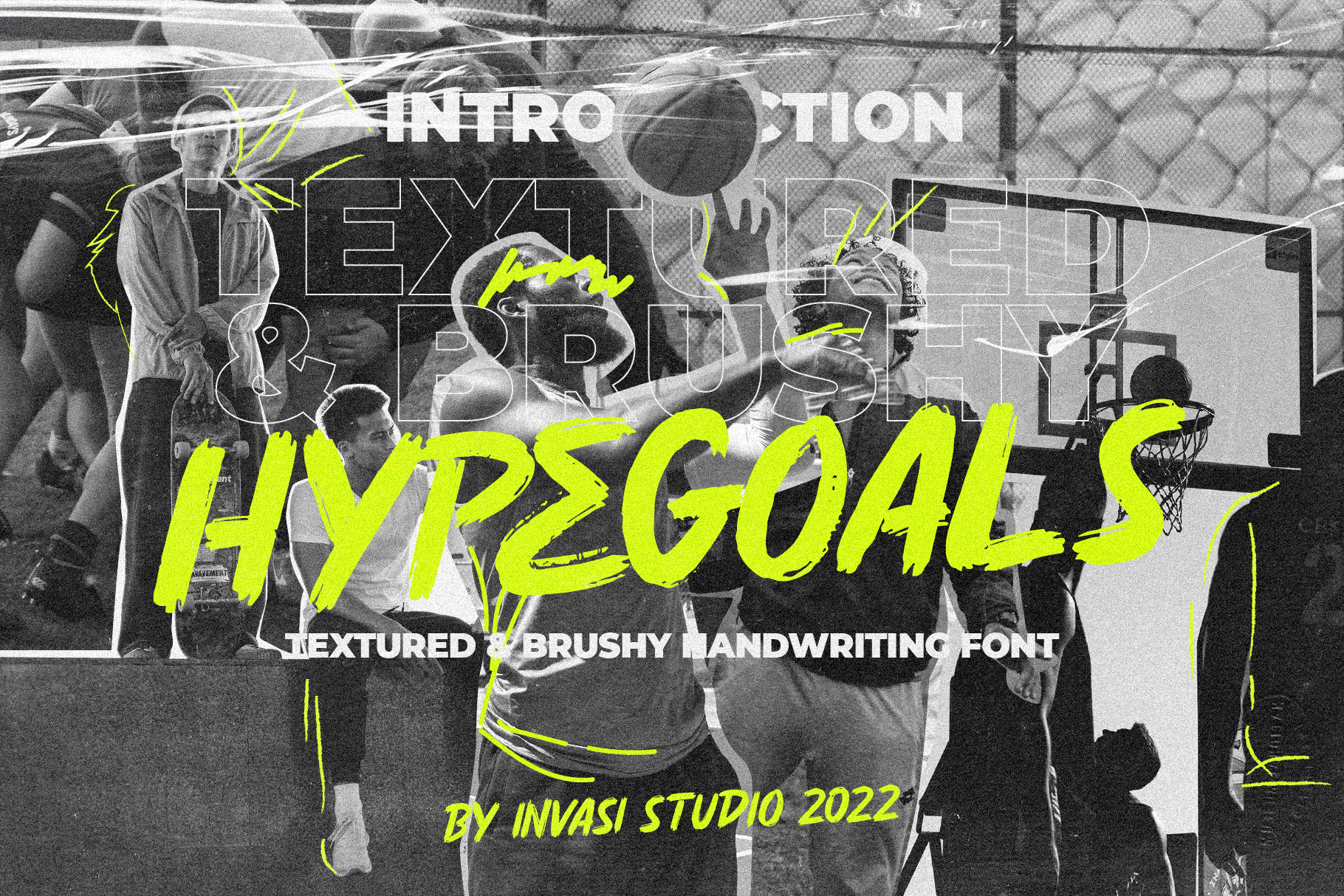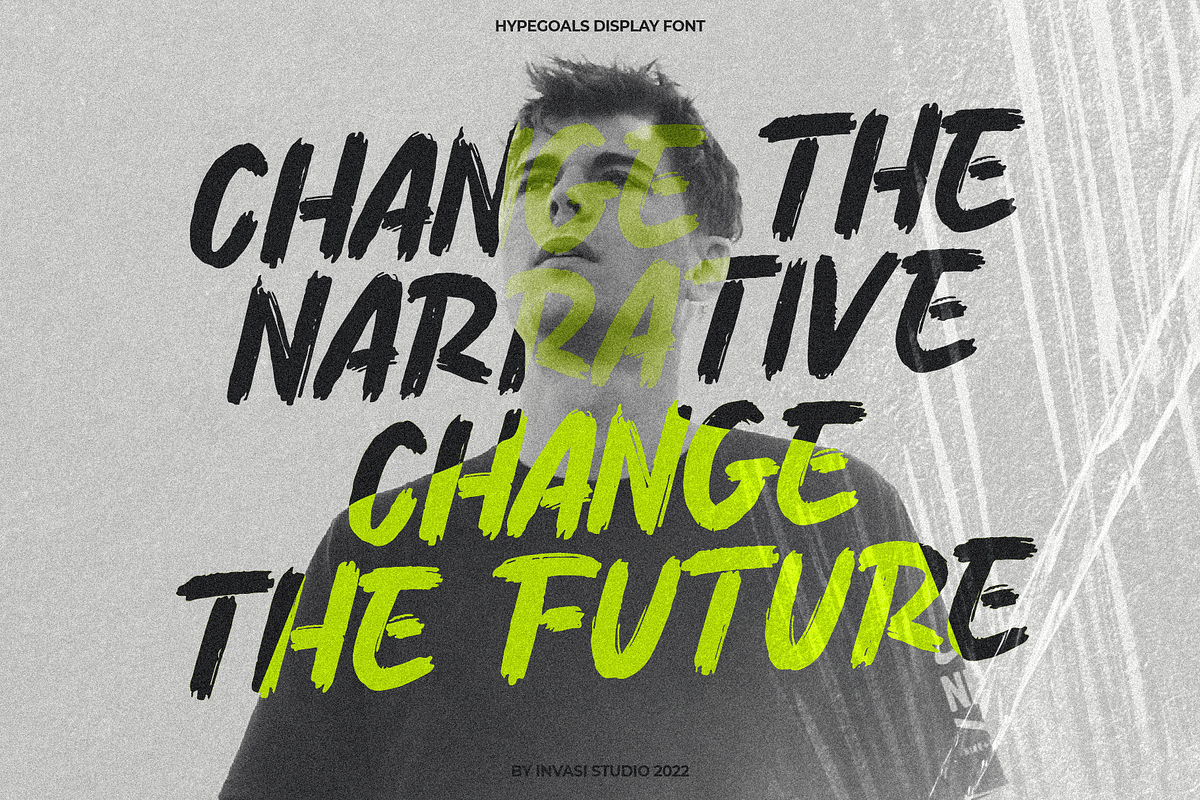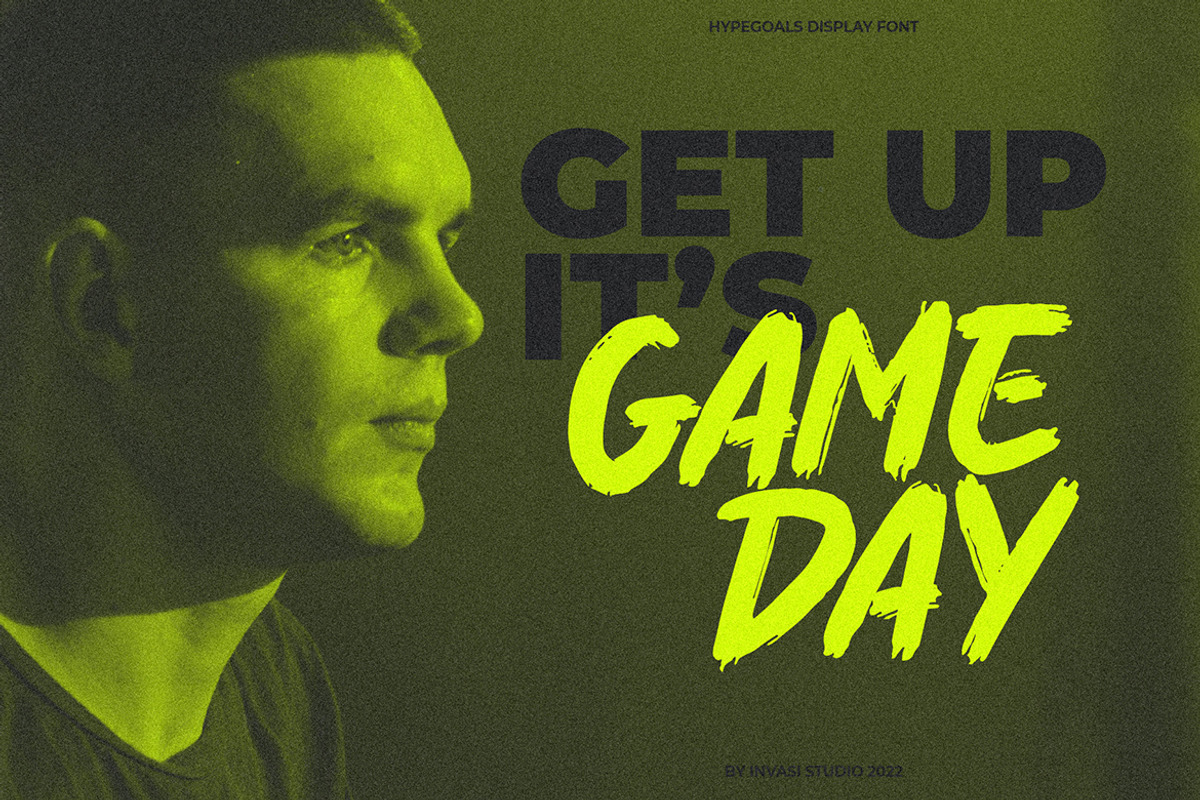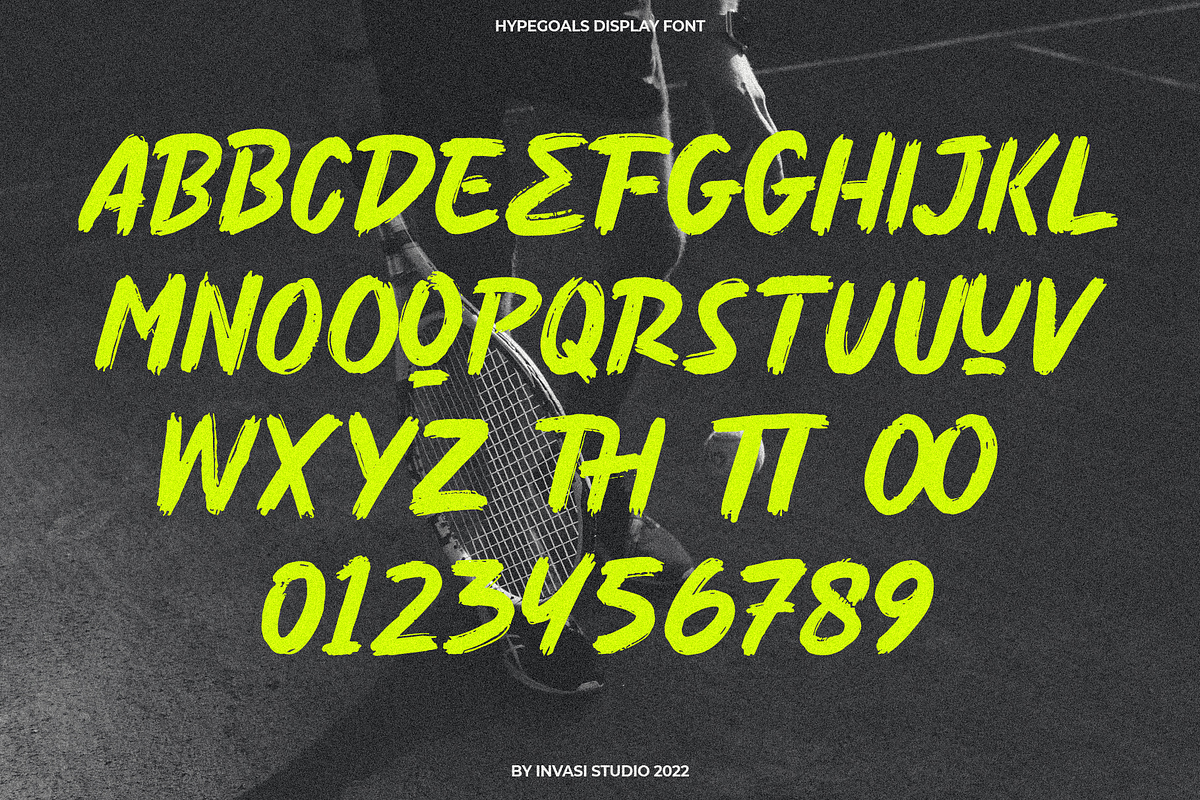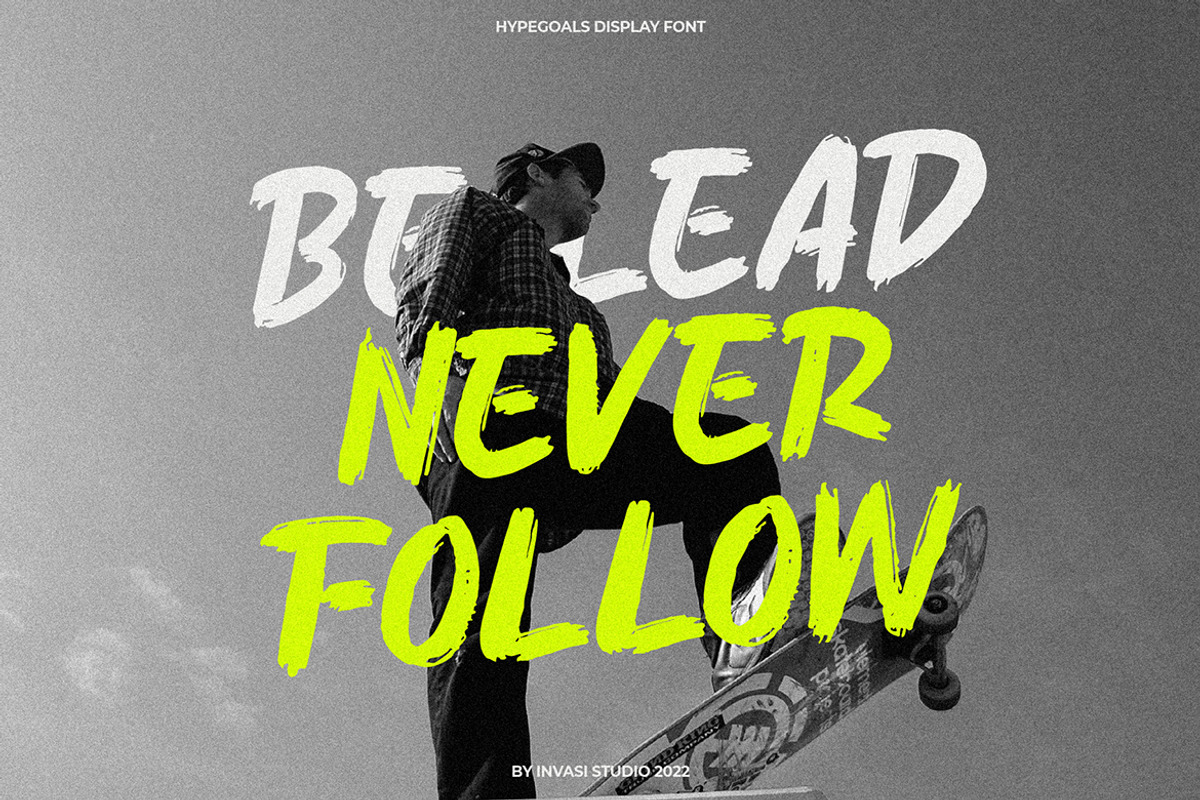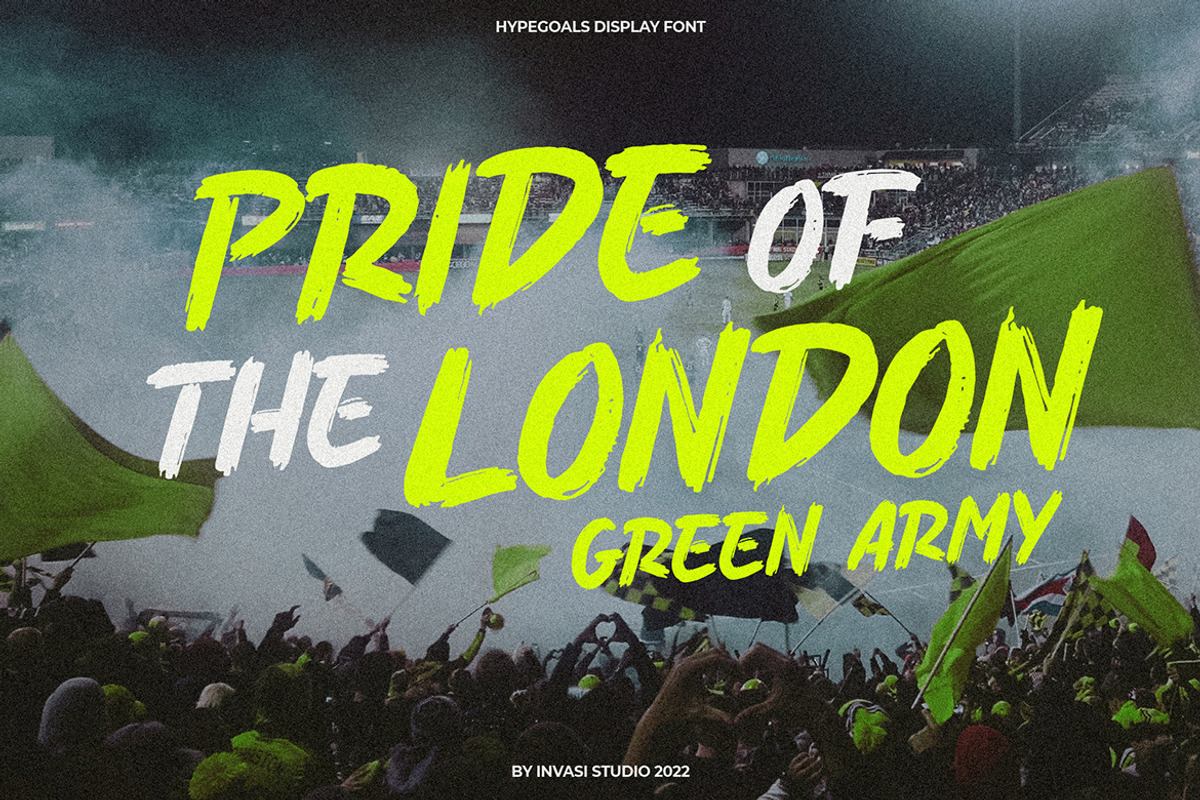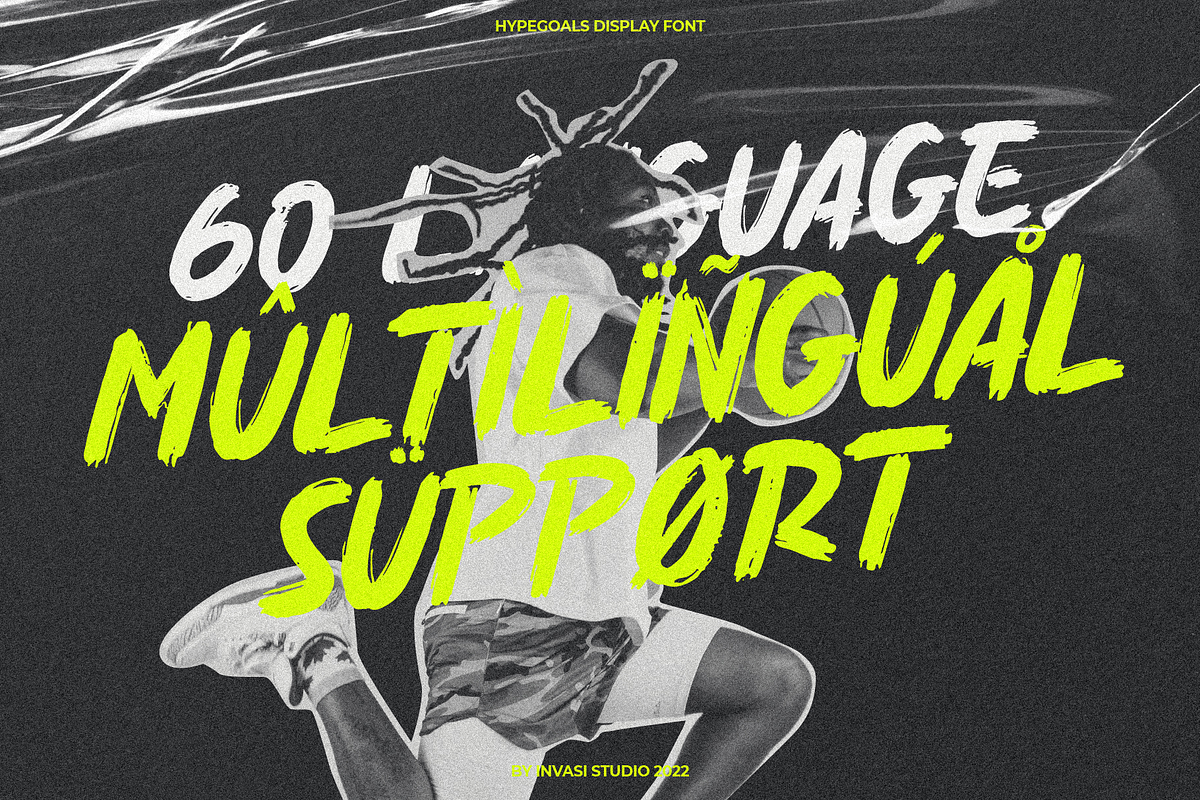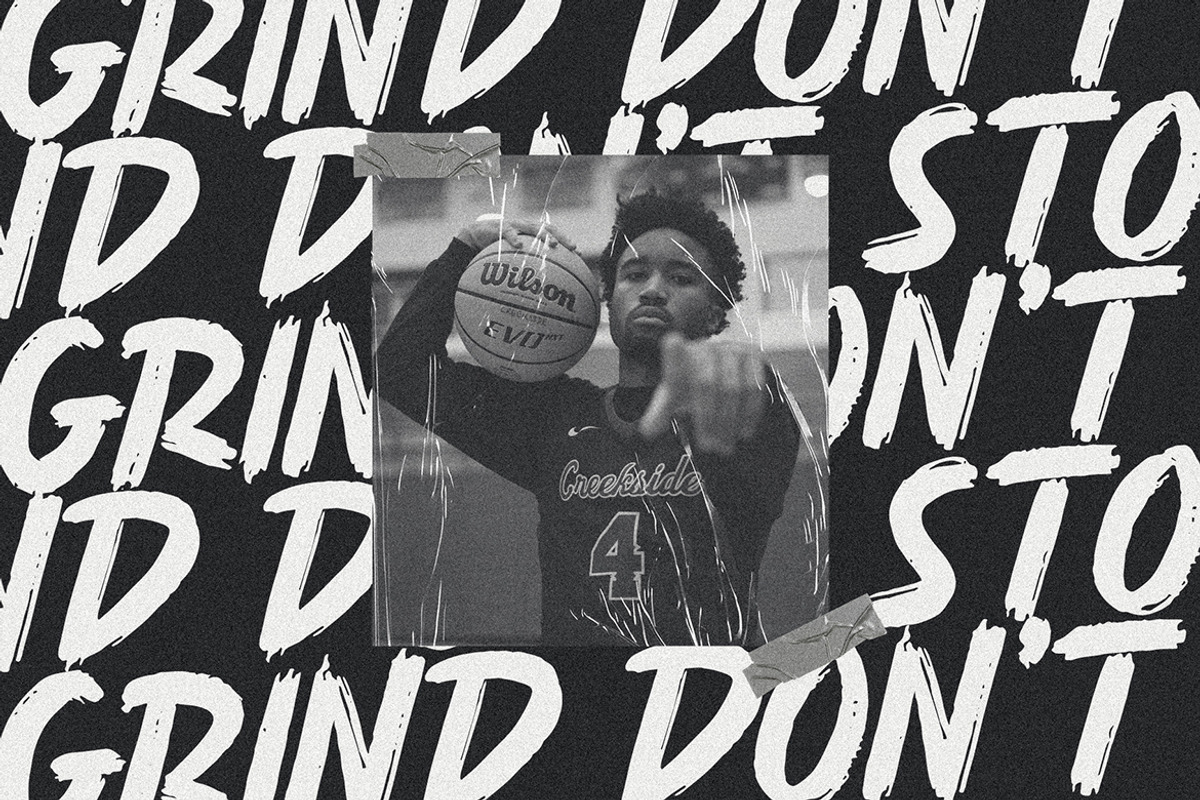
Hypegoals - Brushy Display Font
Make your hype real with Hypegoals Font. A textured, brushy handwriting font with aggressive strokes is perfect for displaying the project's headline. Your sports team will stand out with this typeface.
Hypegoals Font is ideal for headings, flyers, greeting cards, product packaging, book covers, printed quotes, logotype, and album covers
- Alternates & Ligature
- Multilanguage Supports 60+ Latin-based languages